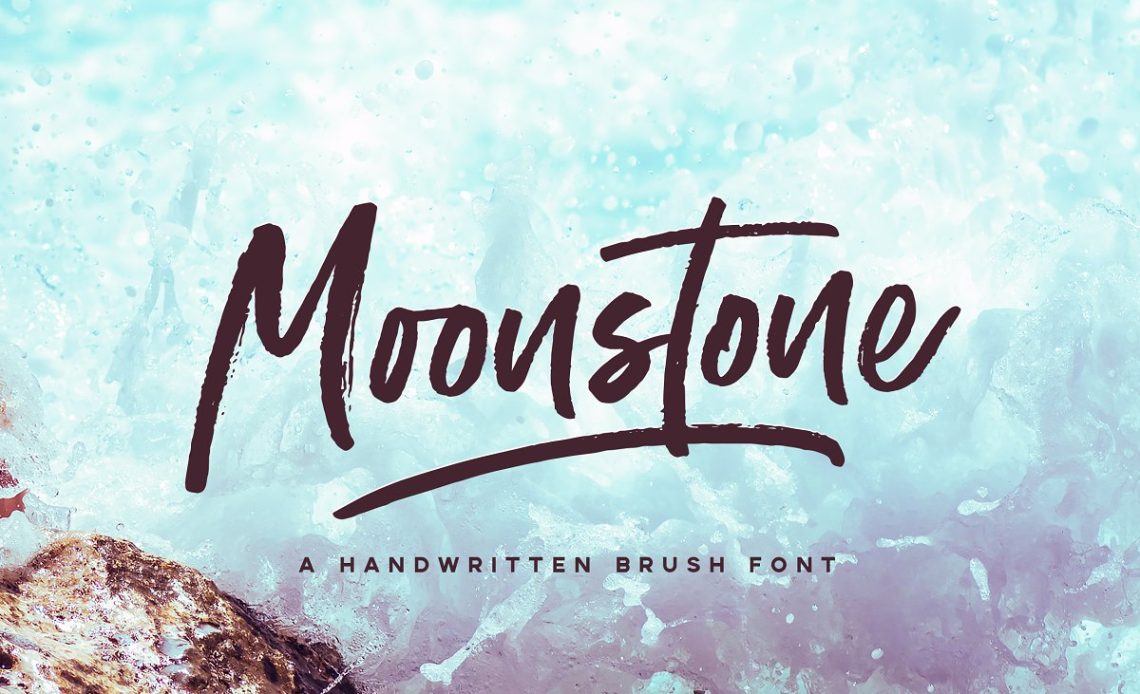
Looking for a unique and stylish handwritten brush font for your Instagram feed, packaging design, or blog headlines? Look no further than Moonstone Brush Font! Created by Vlad Cristea, this font is perfect for those who want to make a statement with their text.
Moonstone's unique flow and style make it perfect for a wide range of uses, from prints and logos to badges and labels. You can even use it to add a fancy touch to your photos! And with upper and lowercase basic characters, numbers, marks, and punctuation, as well as ligatures and swashes, you have plenty of options to make your text pop.